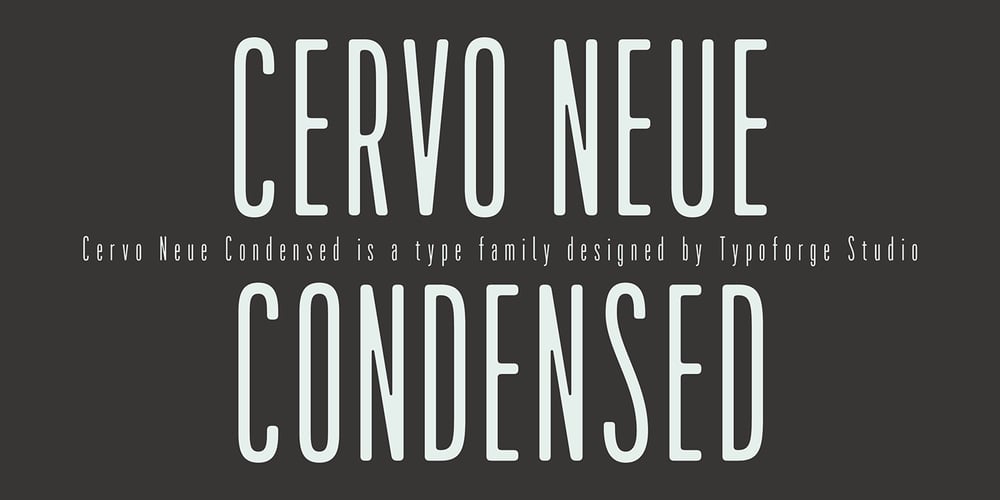
Cervo Neue Condensed
Cervo Neue Condensed font
Cervo Neue Condensed Font Family was designed by Błażej Ostoja Lniski and published by Typoforge Studio. Cervo Neue Condensed contains 18 styles and family package options. Cervo Neue Condensed is the new perfected and Condensed version of Cervo Neue, containing 18 variants. It differs from the previous version of Cervo with the higher accents over glyphs, enlarged punctuation, old-style numerals and the newly added varieties Semi Bold, Bold, Extra Bold and Black. Additionally, there is the variety of grotesque. Font Cervo is inspired by a “You And Me Monthly” published by National Magazines Publisher RSW „Prasa” that appeared from Mai 1960 till December 1973 in Poland.Recently, Cervo Neue Condensed has started being used as a display text in „Przekrój Magazine” which was published in years 1945–2013 in Krakow (2002–2009 in Warsaw) as a weekly and again from 2016 as a quarterly journal in Warsaw.